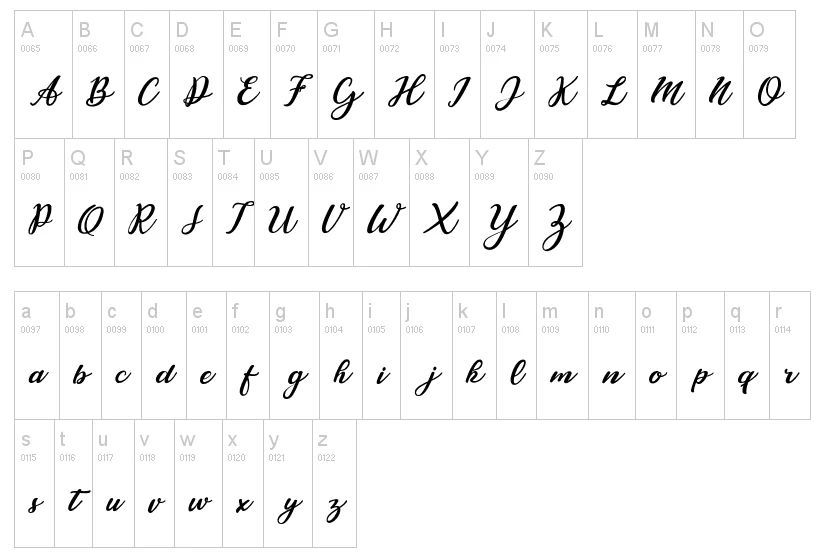
Cassandra is a handwriting font. Are you looking for a font that is very aesthetic? You can use Cassandra everywhere. Billy Argel designs this font. This font is easier to navigate than other script’s fonts.
Wondering where to use it? No confusion about the use of this font. Many script type fonts have found that are very complex. The design of the Cassandra font is so simple that it can be used in any field.
Posters, banners, flyers, web design are always a good fit for this font. Using the logo is not highly recommended but it would not be bad if used. Use in the tagline is the best use than a logo. Also, you can use this font for a YouTube thumbnail.
| Name | Cassandra Font |
| Style | Regular |
| Author | Billy Argel |
| Type | Cursive, Handwriting |
What type of font is Cassandra?
Ans: Cassandra is a Geometric Cursive typeface font with only bold weights.
Is there any font similar to Cassandra in Google Fonts?
Ans: The closest similar alternative in Google fonts to Cassandra is Dancing Script and Pacifico.